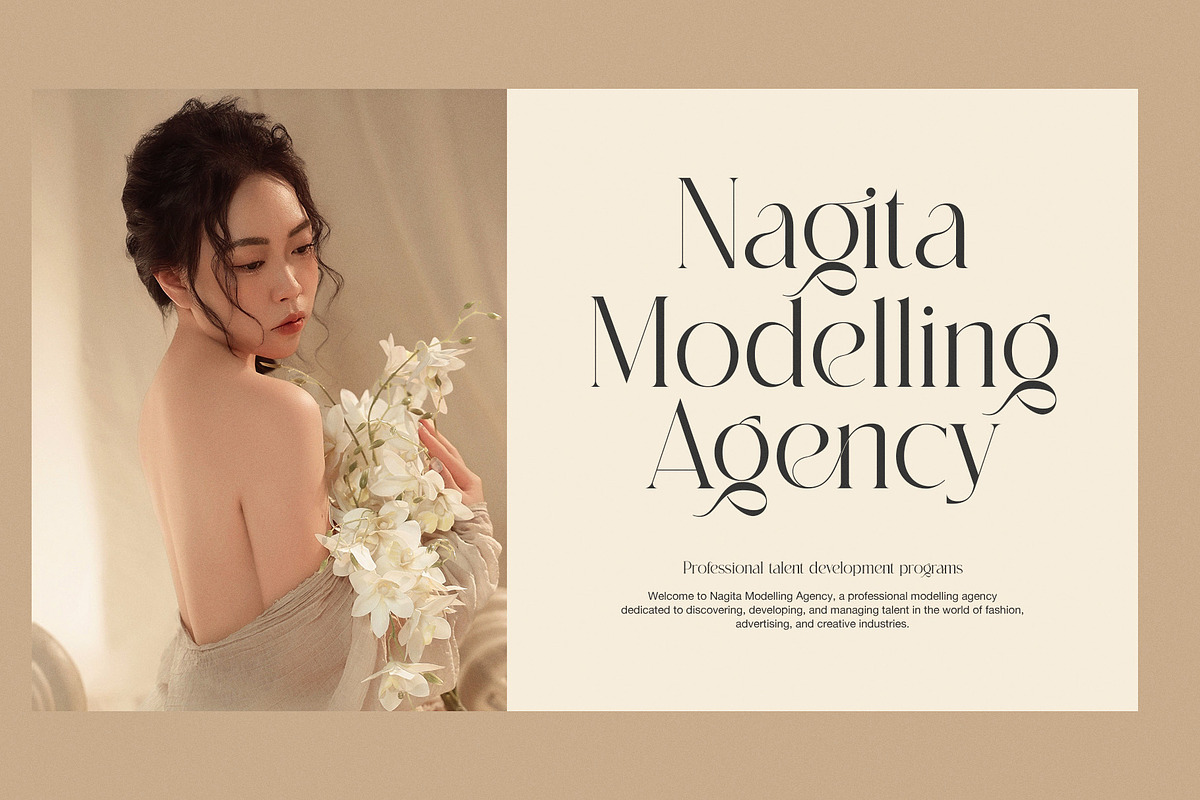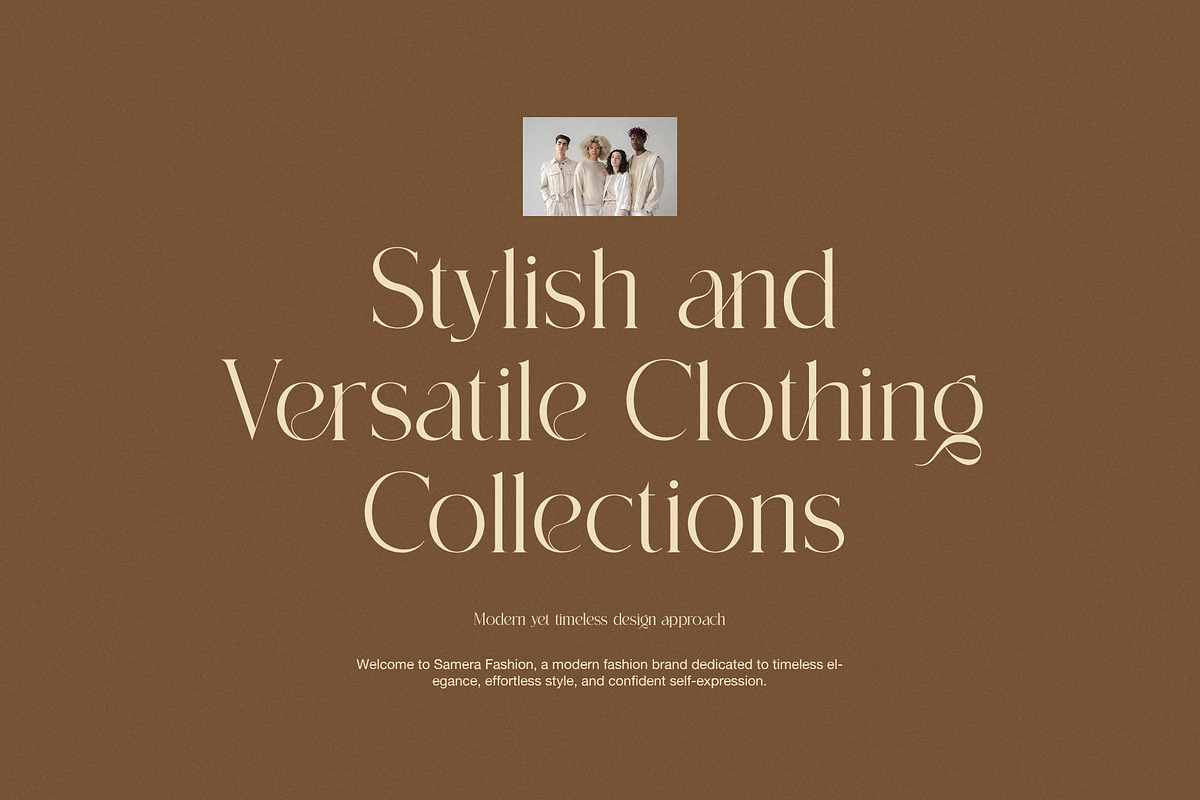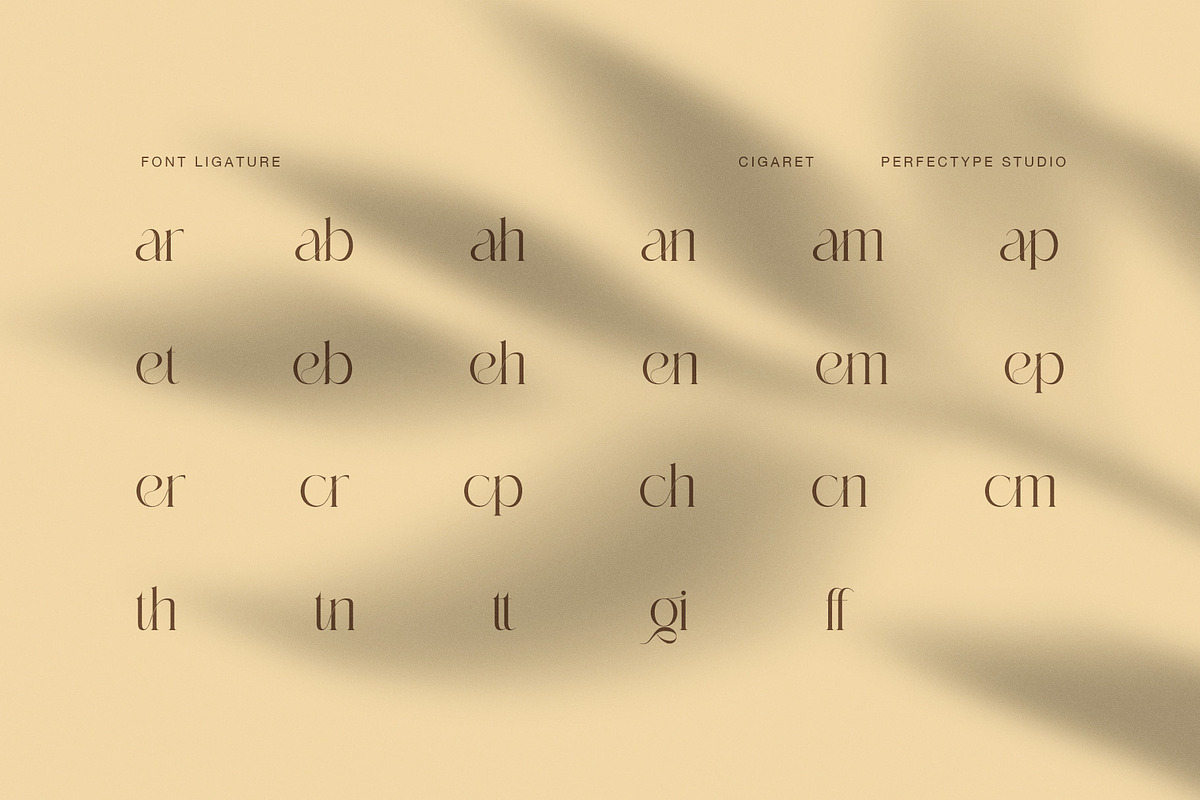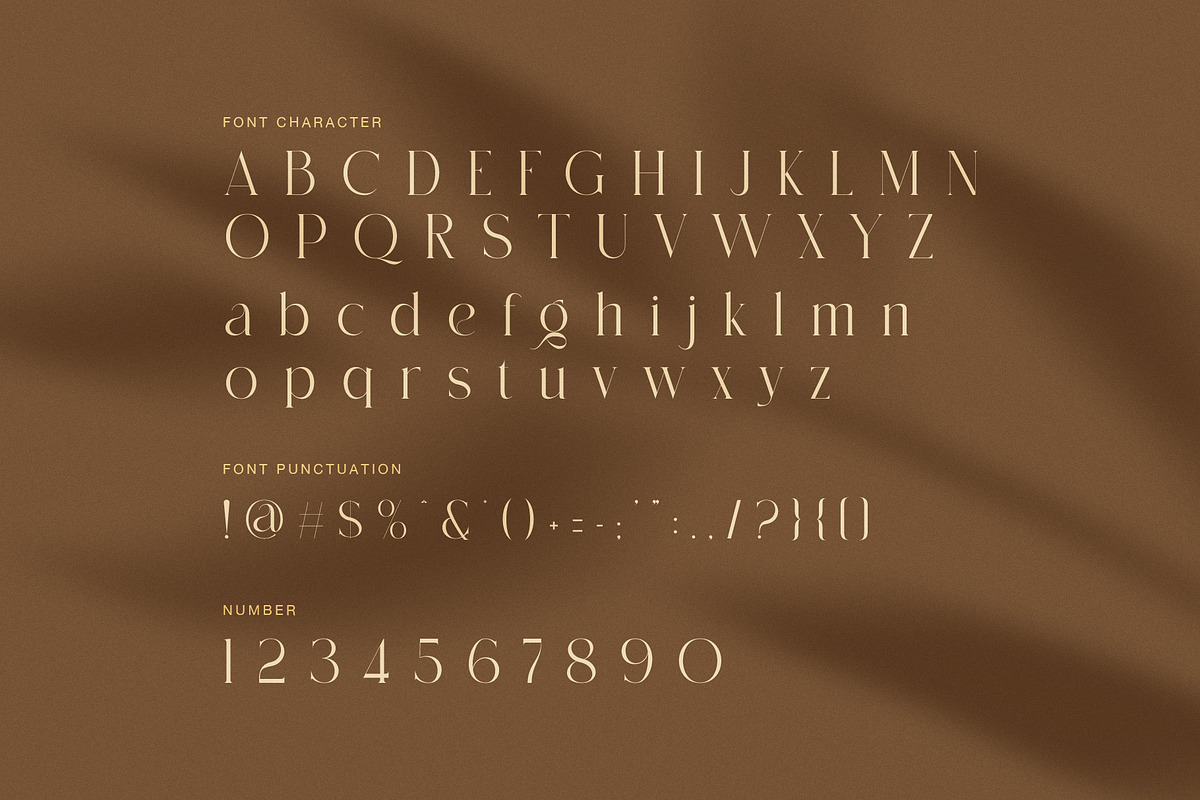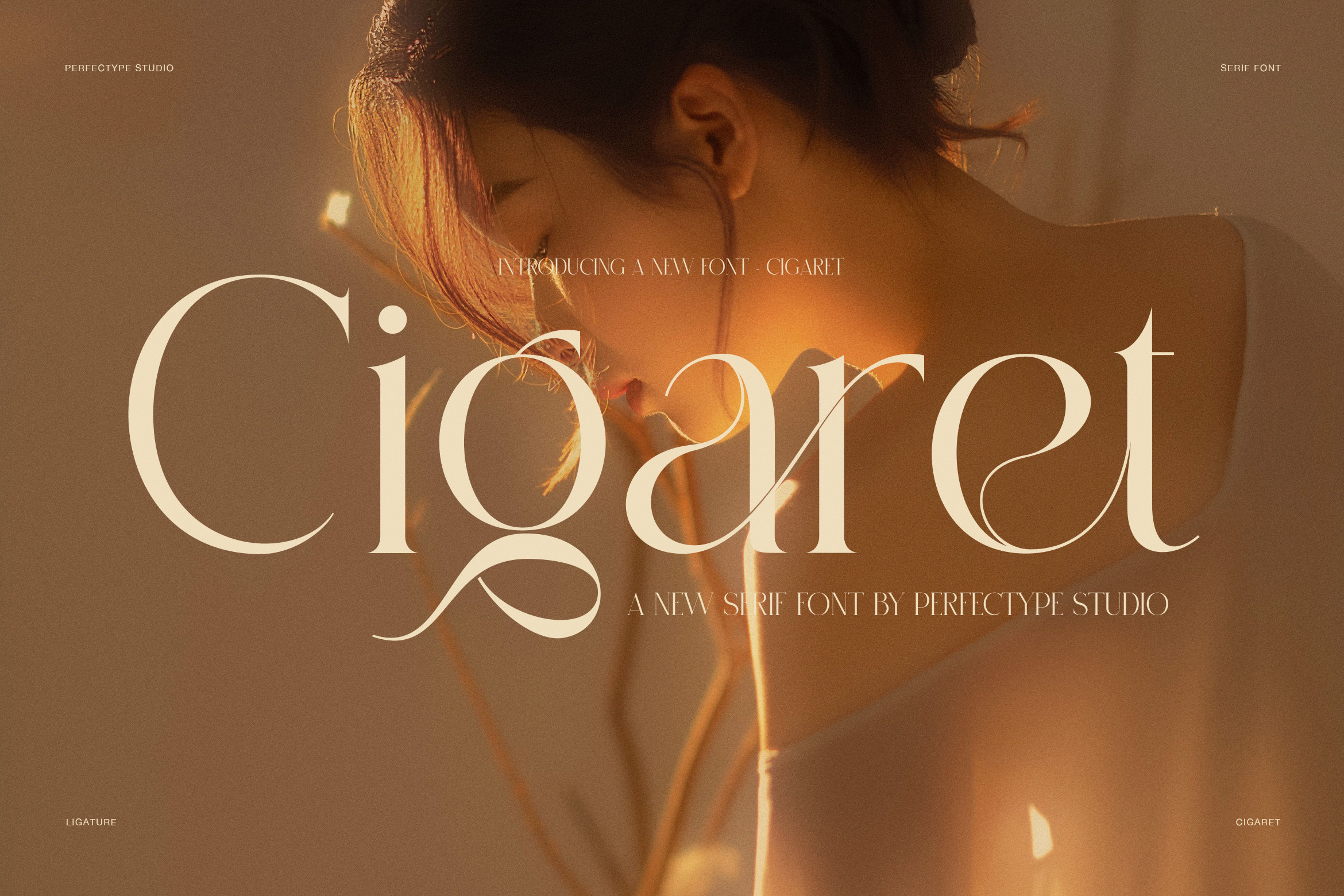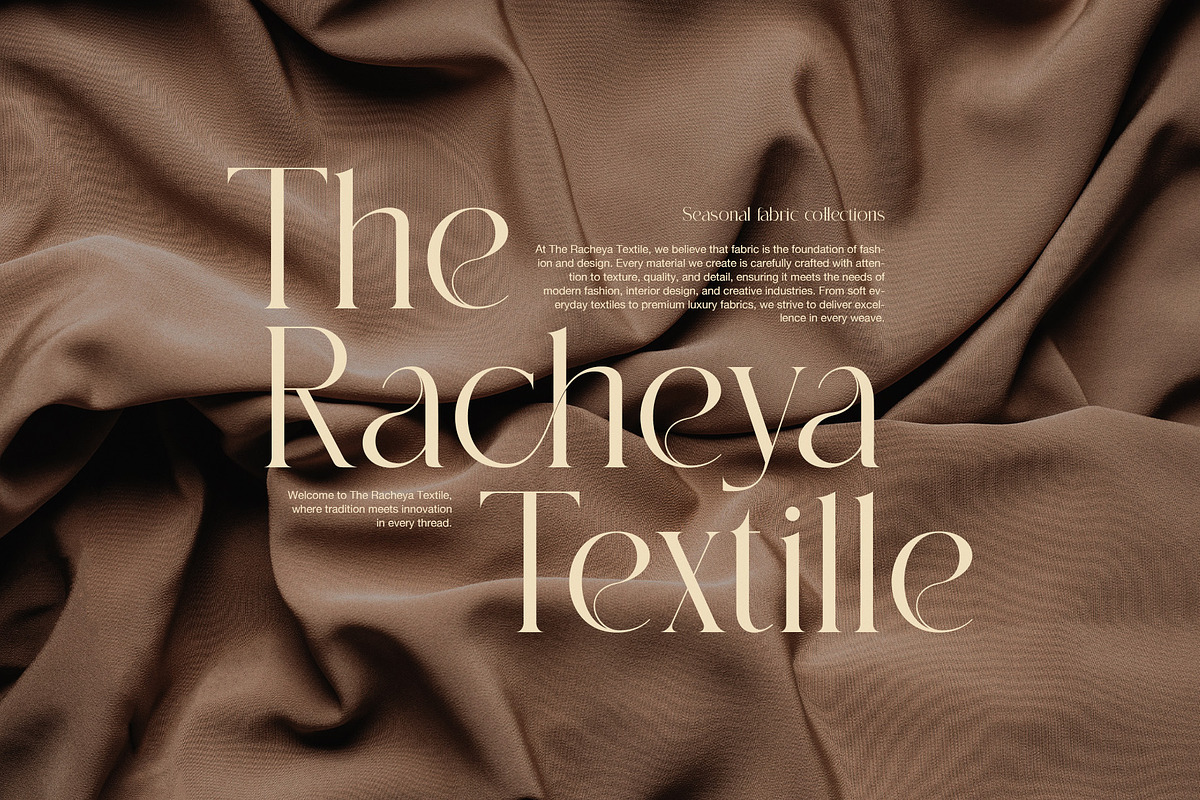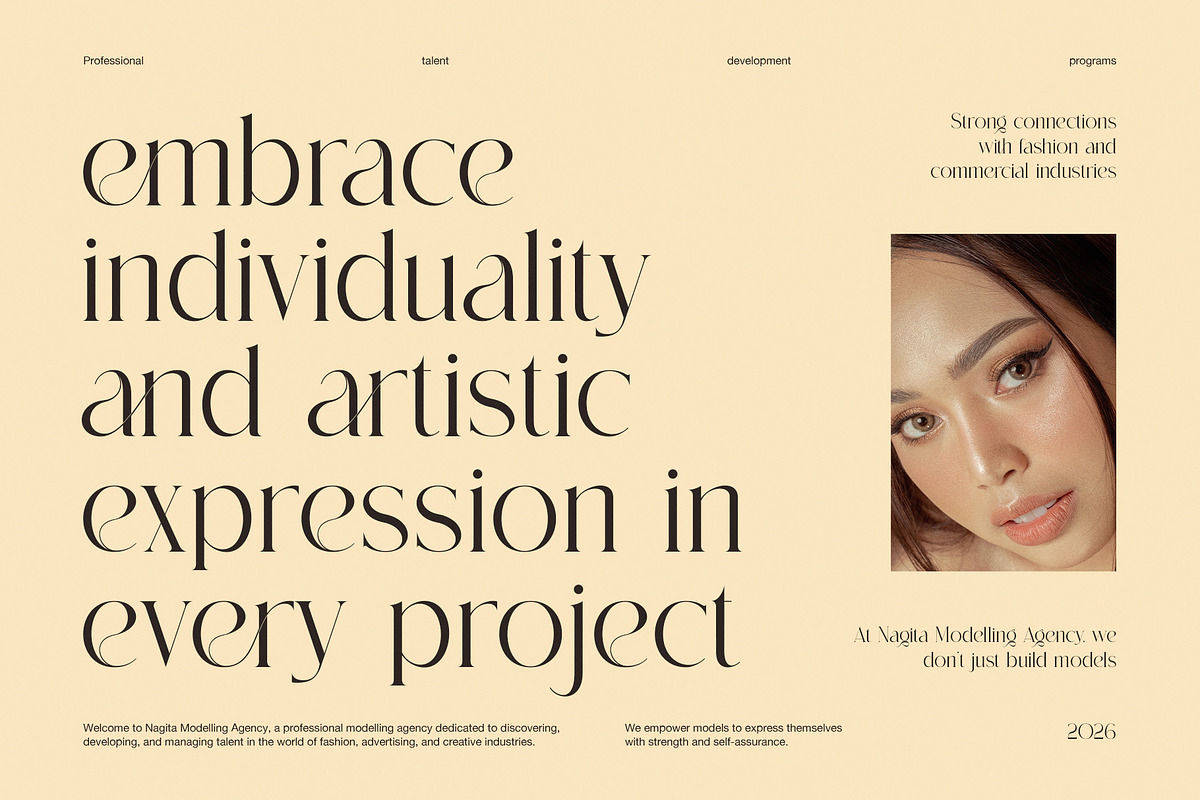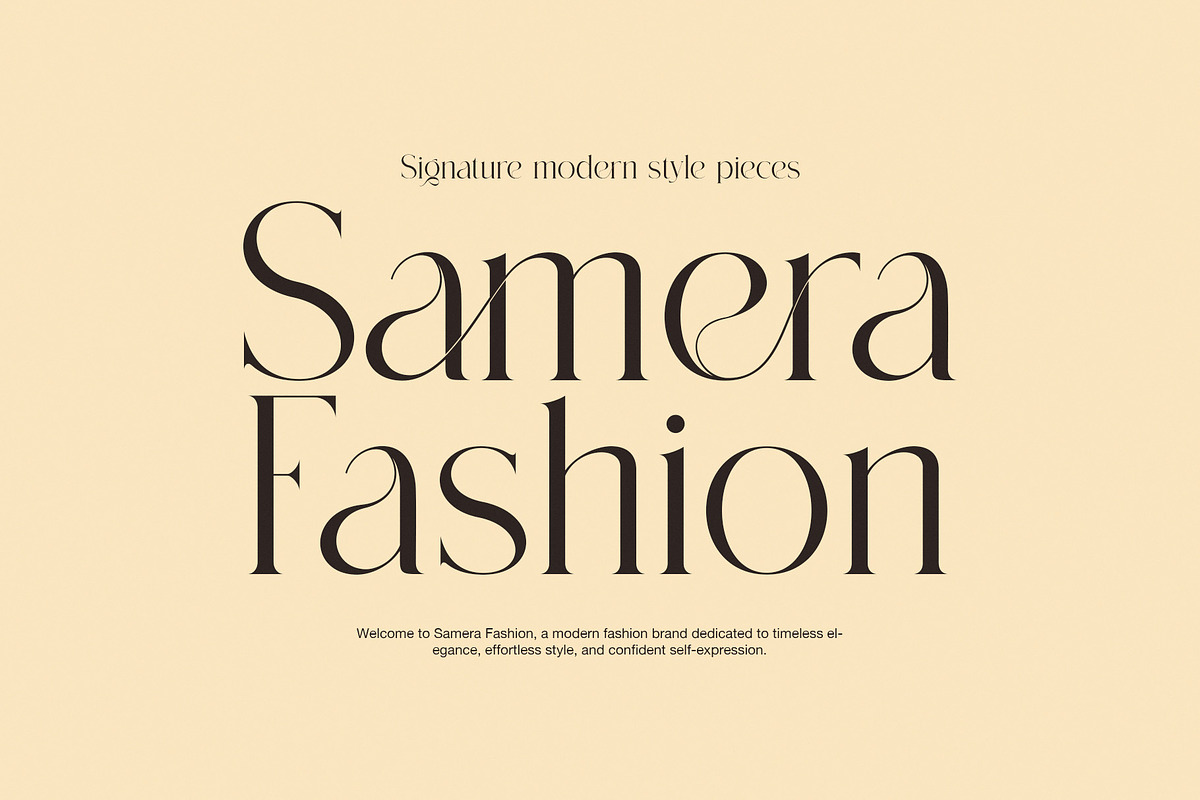
Cigaret Elegant Fashion Serif Font
Cigaret is an elegant fashion serif font made for refined, stylish, and eye-catching design. Its high contrast gives each letter a graceful mix of bold stems and fine hairlines. As a result, the type has a light yet confident look that feels at home in modern fashion and luxury work.
The letter shapes are tall, slim, and smooth. In addition, the soft curves bring a sense of movement to large words. The lowercase set is especially expressive, with long strokes and delicate details that create a high-end editorial feel. Therefore, Cigaret works best when the type is given room to breathe.
A key feature is its collection of stylish ligatures. These special letter pairs create flowing connections and add a custom touch to names, titles, and short phrases. Moreover, the ligatures can make simple words feel more personal and artistic. This makes the font a strong choice for designers who want a distinctive serif style without losing a clean finish.
Cigaret is ideal for:
Fashion logos and clothing labels
Beauty and skincare branding
Magazine covers and editorial layouts
Luxury packaging and perfume labels
Wedding invitations and stationery
Jewelry and accessory branding
Modeling agencies and creative studios
Boutique websites and social media graphics
Textile, lifestyle, and premium product designs
The font also includes uppercase letters, lowercase letters, numbers, punctuation, and decorative ligatures. Because of this range, it can support both bold display text and smaller supporting lines. However, its greatest strength appears in large headlines, logos, and short brand names where its fine details can shine.
Furthermore, Cigaret has a polished fashion character that pairs well with clean sans serif fonts. Use it for a strong main title, then add a simple sans serif for extra balance. Likewise, the ligatures can be used selectively to highlight key words without making the layout feel busy.
Overall, Cigaret is an elegant fashion serif font for modern brands, creative campaigns, and premium visual identities. Its sharp contrast, graceful curves, and artistic ligatures bring a timeless mood with a fresh edge. Therefore, it is a versatile choice for designers seeking beauty, style, and a memorable display look.